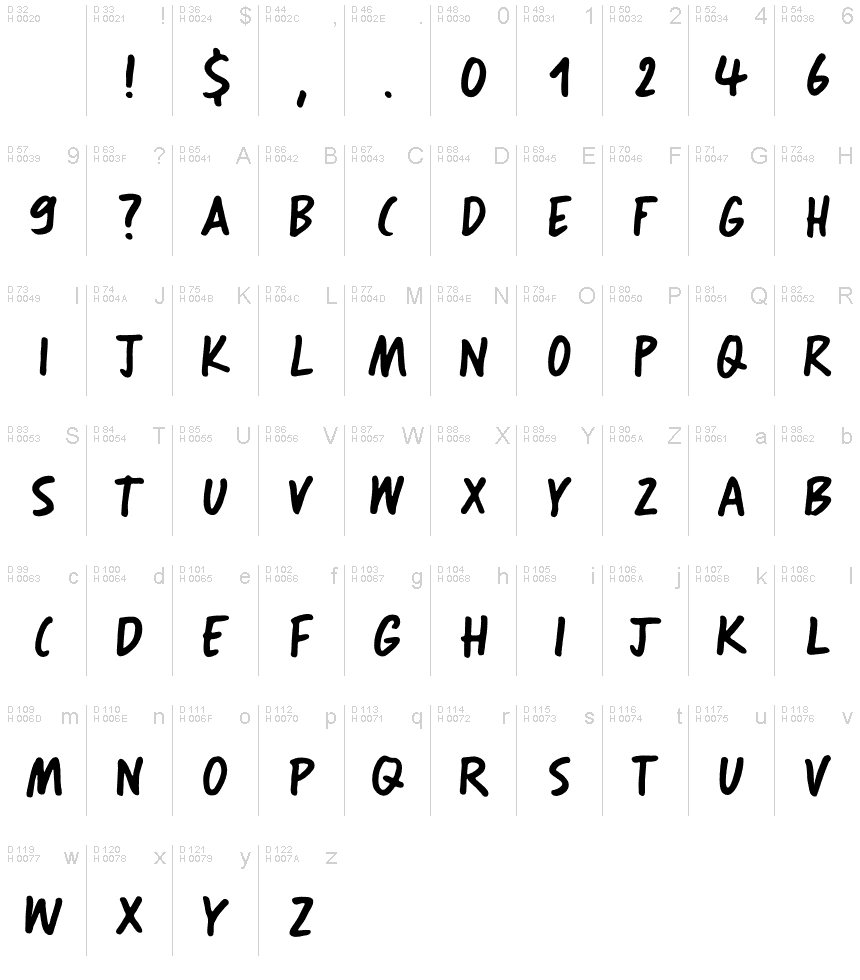
Search Party DEMO Regular
Search Party, a handwritten gem crafted by the talented Hanoded, embodies the spontaneity and charm of authentic handwriting. Its bold strokes and playful irregularities capture the essence of an impromptu doodle while maintaining readability, making it a delightful choice for designers seeking to inject personality into their work. The font's casual elegance is perfectly suited for invitations, branding projects, and editorial designs that require a touch of human warmth. With Search Party's distinctive character, your creative endeavours will resonate with an inviting and approachable aesthetic.